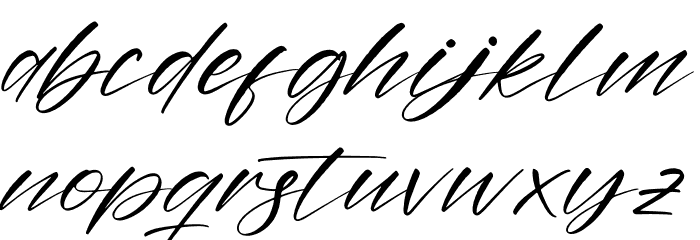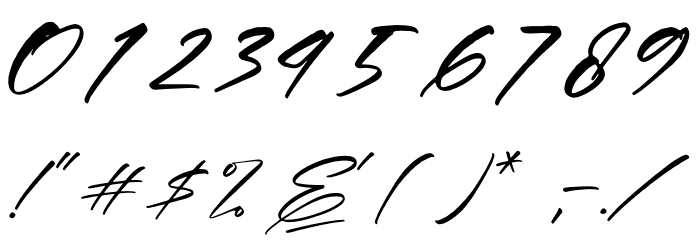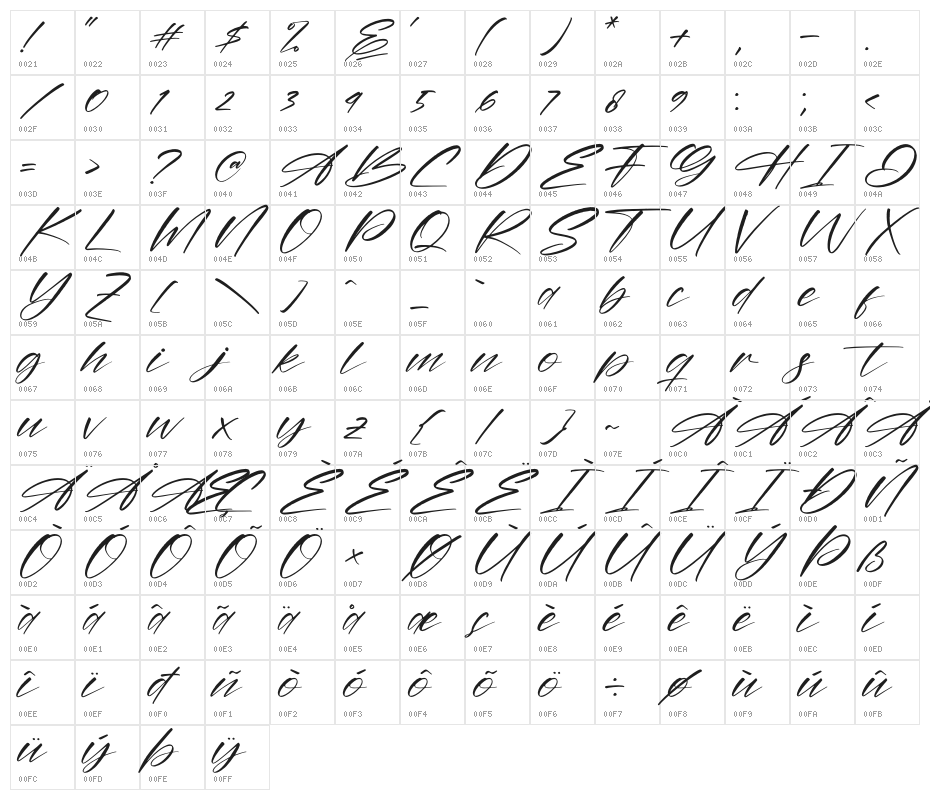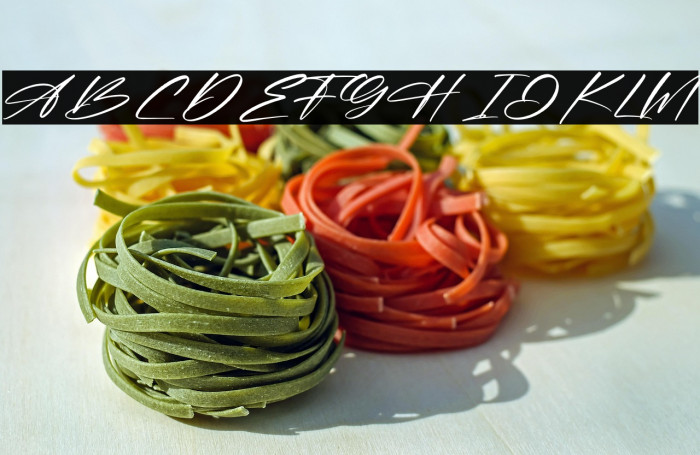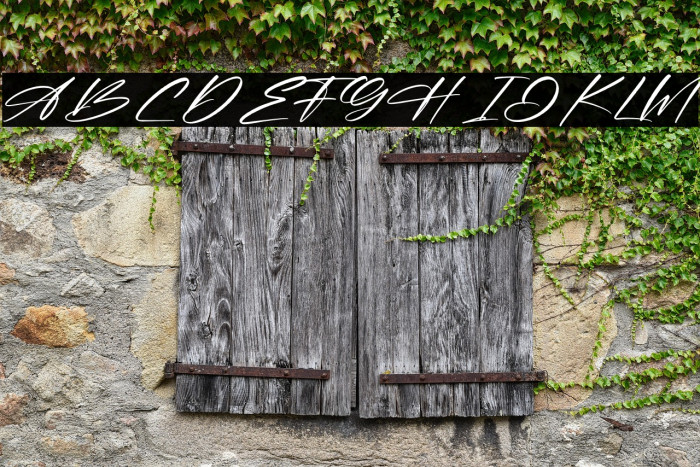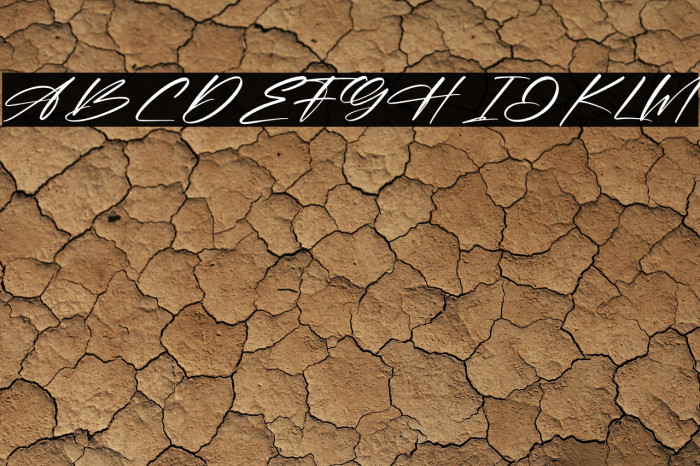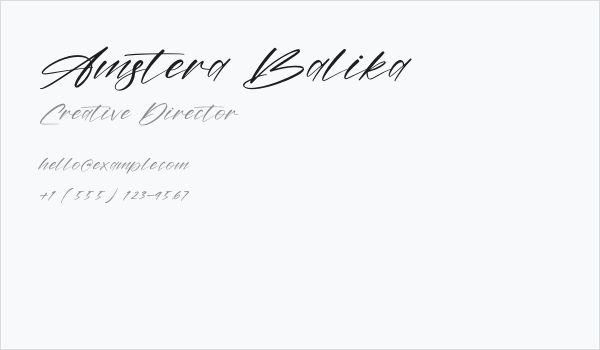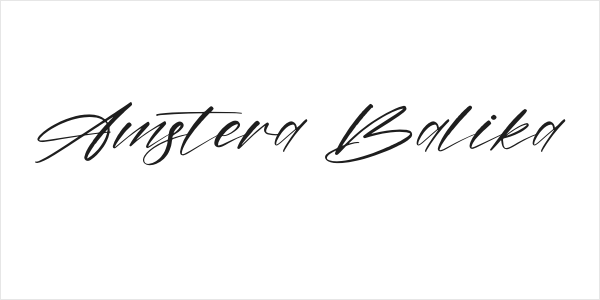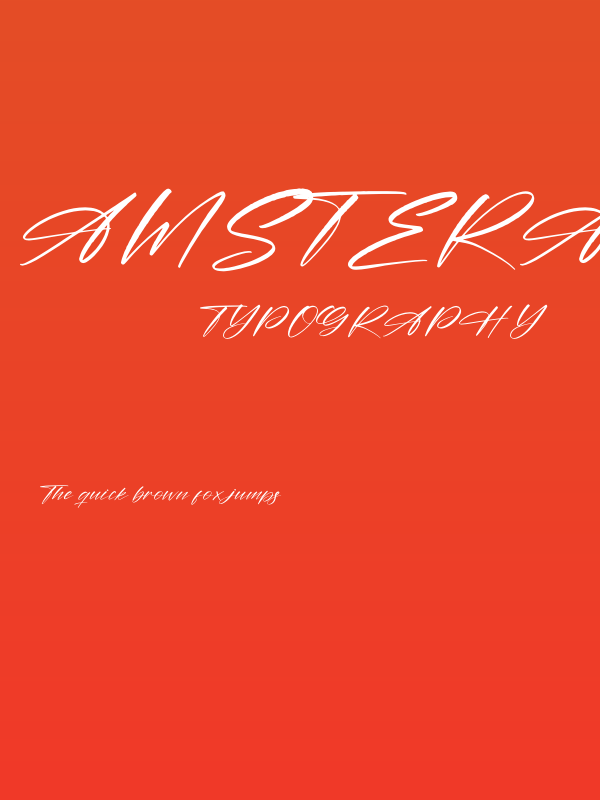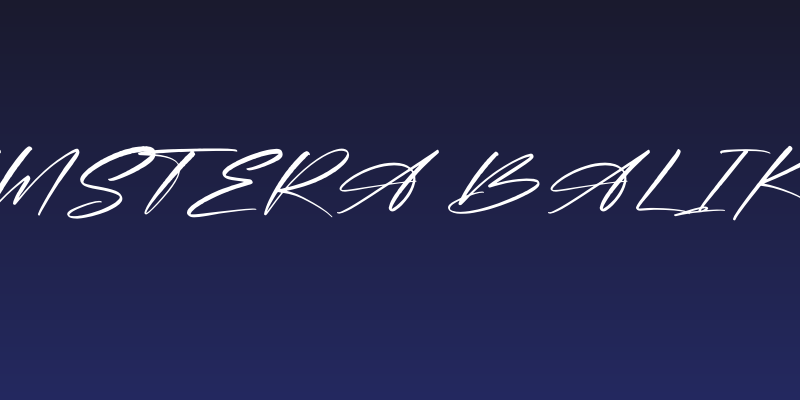
Amstera Balika Font
This font features a dynamic and fluid script style, characterized by its elegant, flowing lines and cursive letterforms. The strokes are smooth and connected, giving it a handwritten appearance that is both stylish and sophisticated. The uppercase letters are slightly more formal, while the lowercase letters maintain a casual, yet refined look. Numerals and special characters are designed to complement the overall aesthetic, ensuring a cohesive appearance across all text. The font's design is perfect for adding a personal touch to any project, with its graceful curves and balanced proportions.
A fluid and elegant script font with a handwritten appearance.
- Font: Amstera Balika
- Proposed Projects: Ideal for wedding invitations, greeting cards, branding, and personal stationery.
- Category: Script
- Use Case: Logos, Invitations, Personal stationery